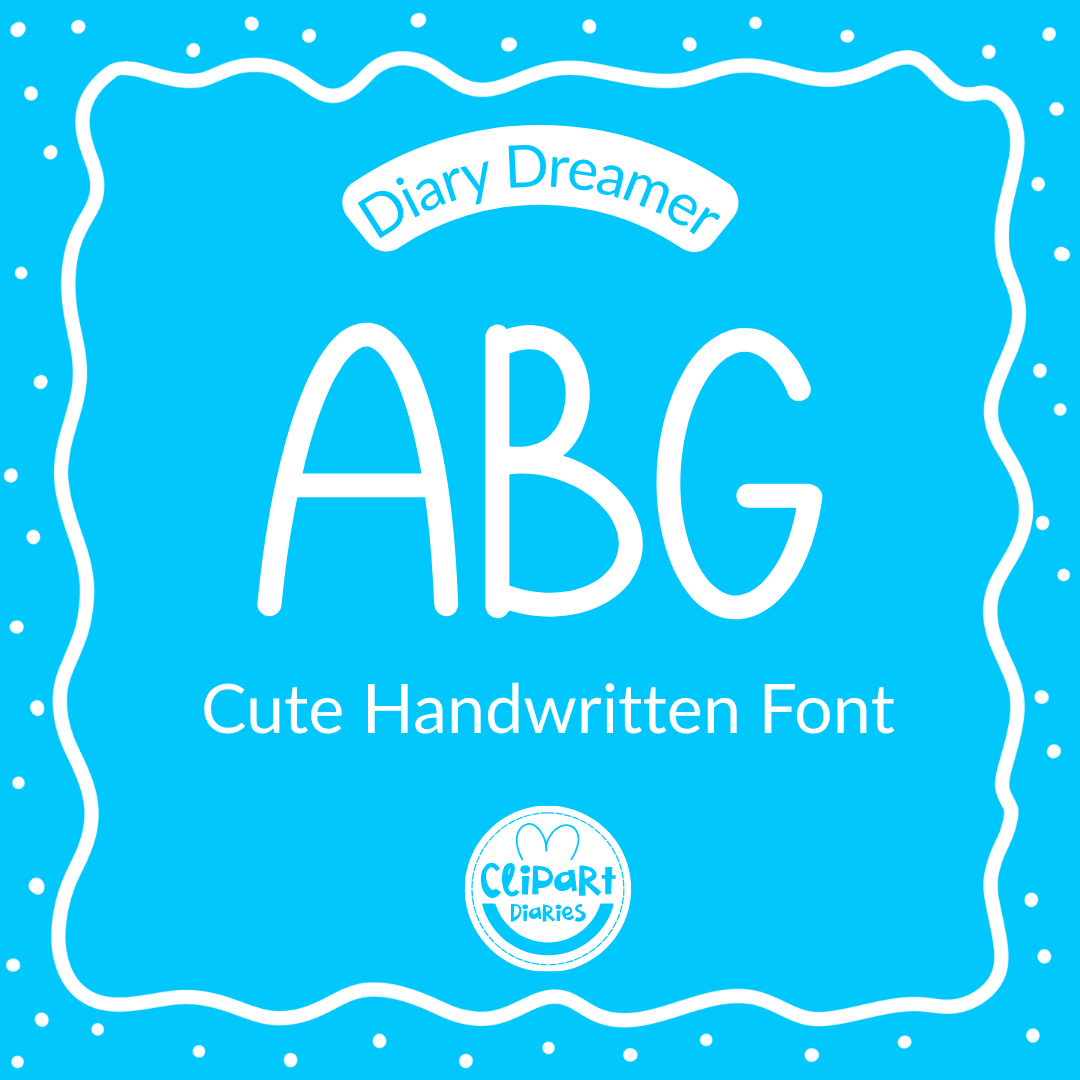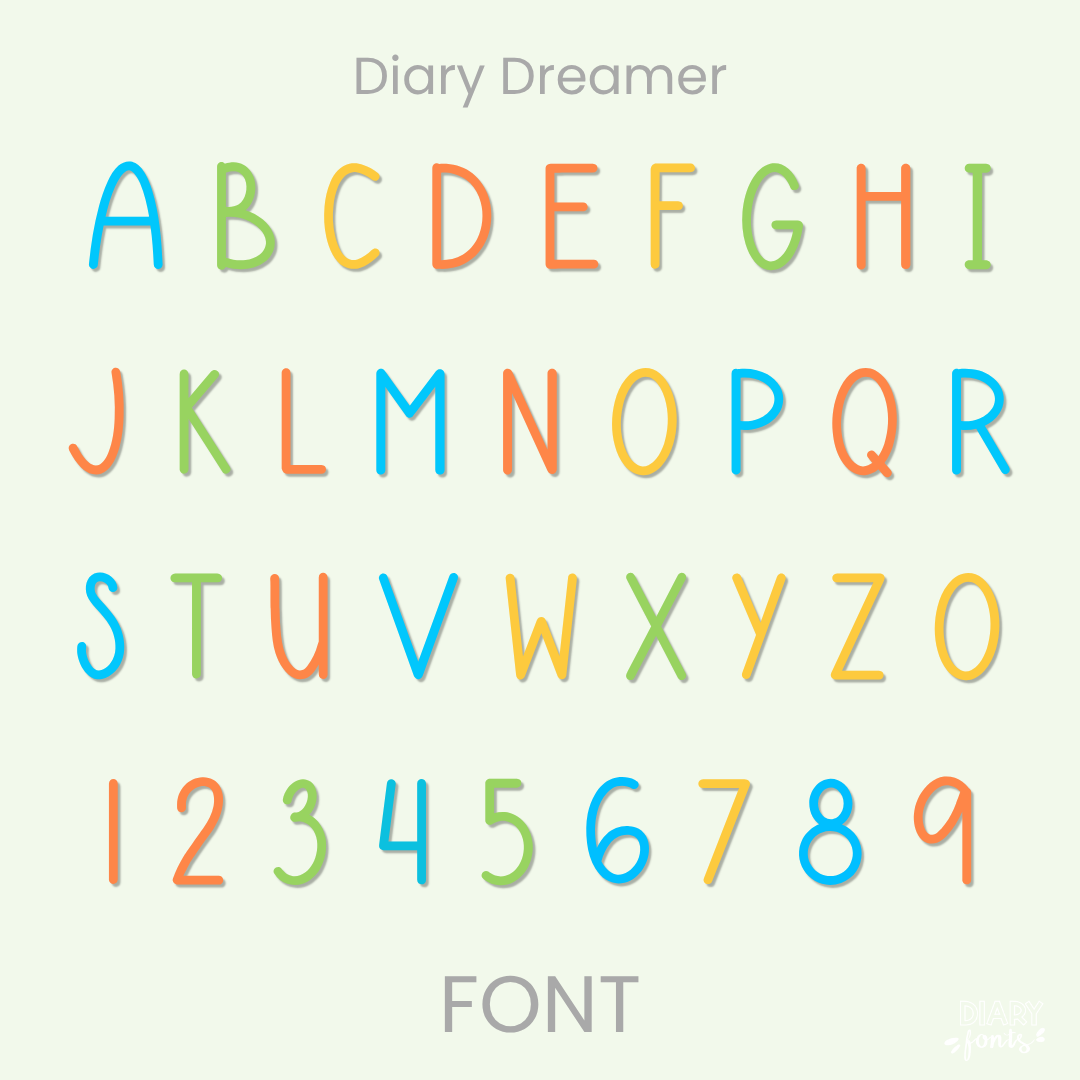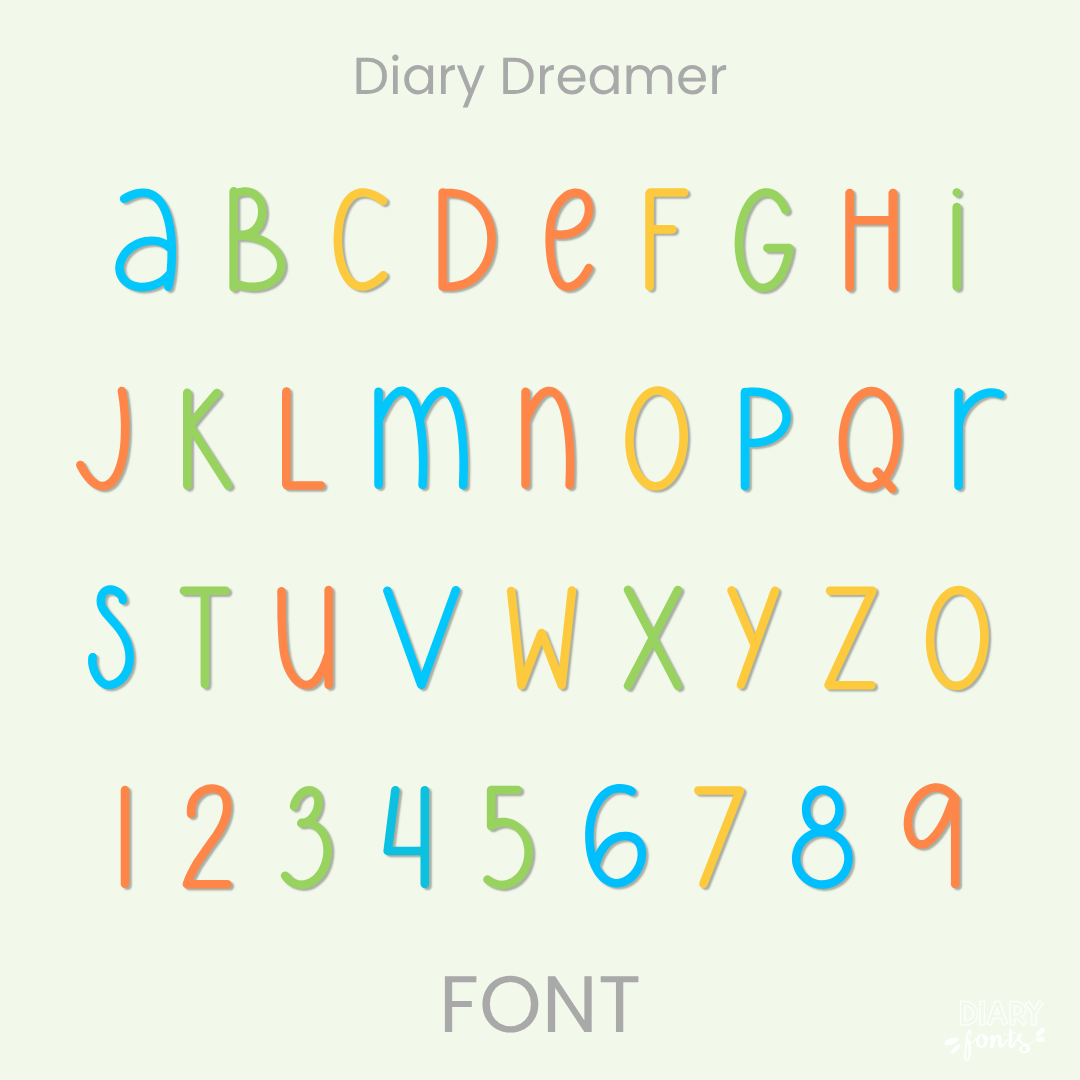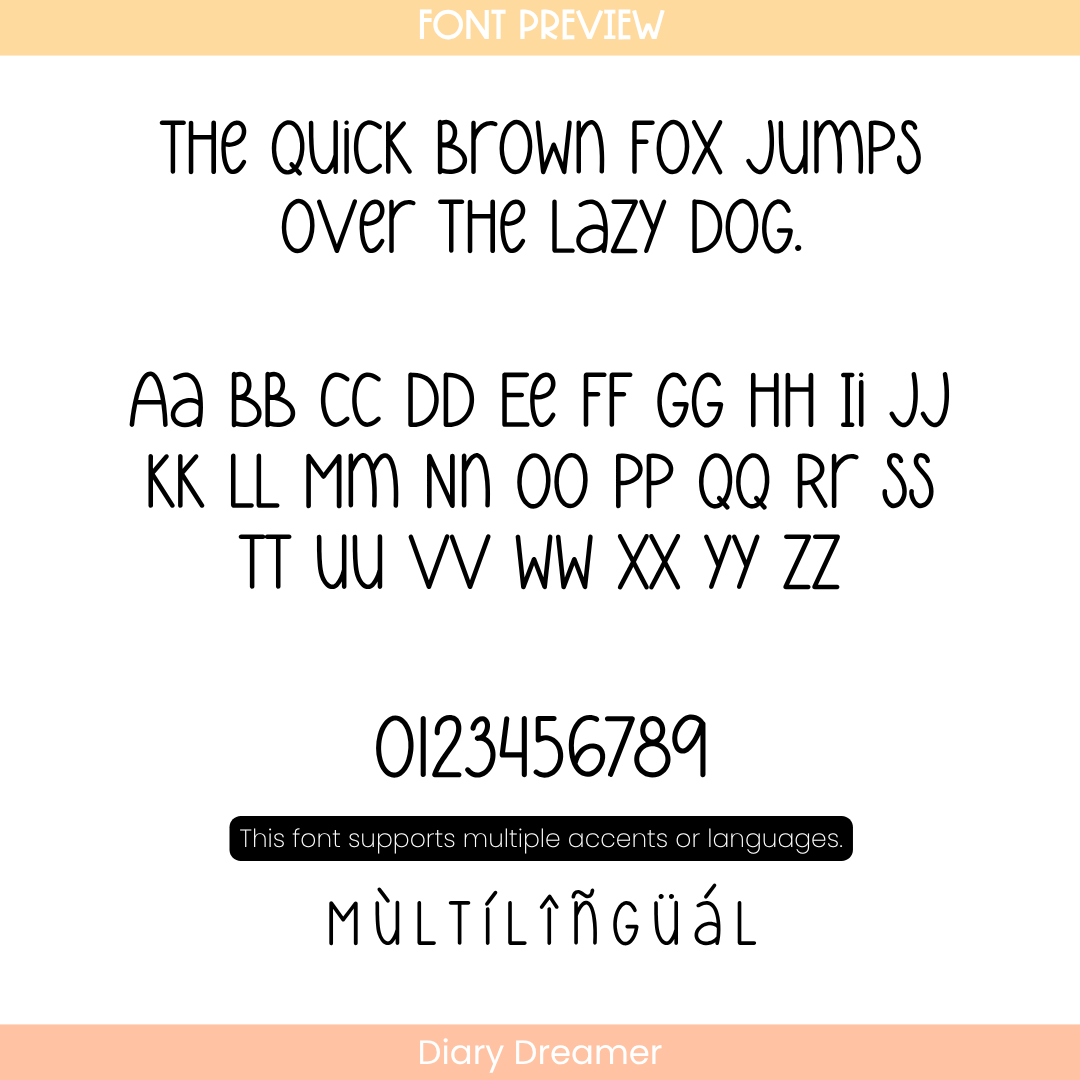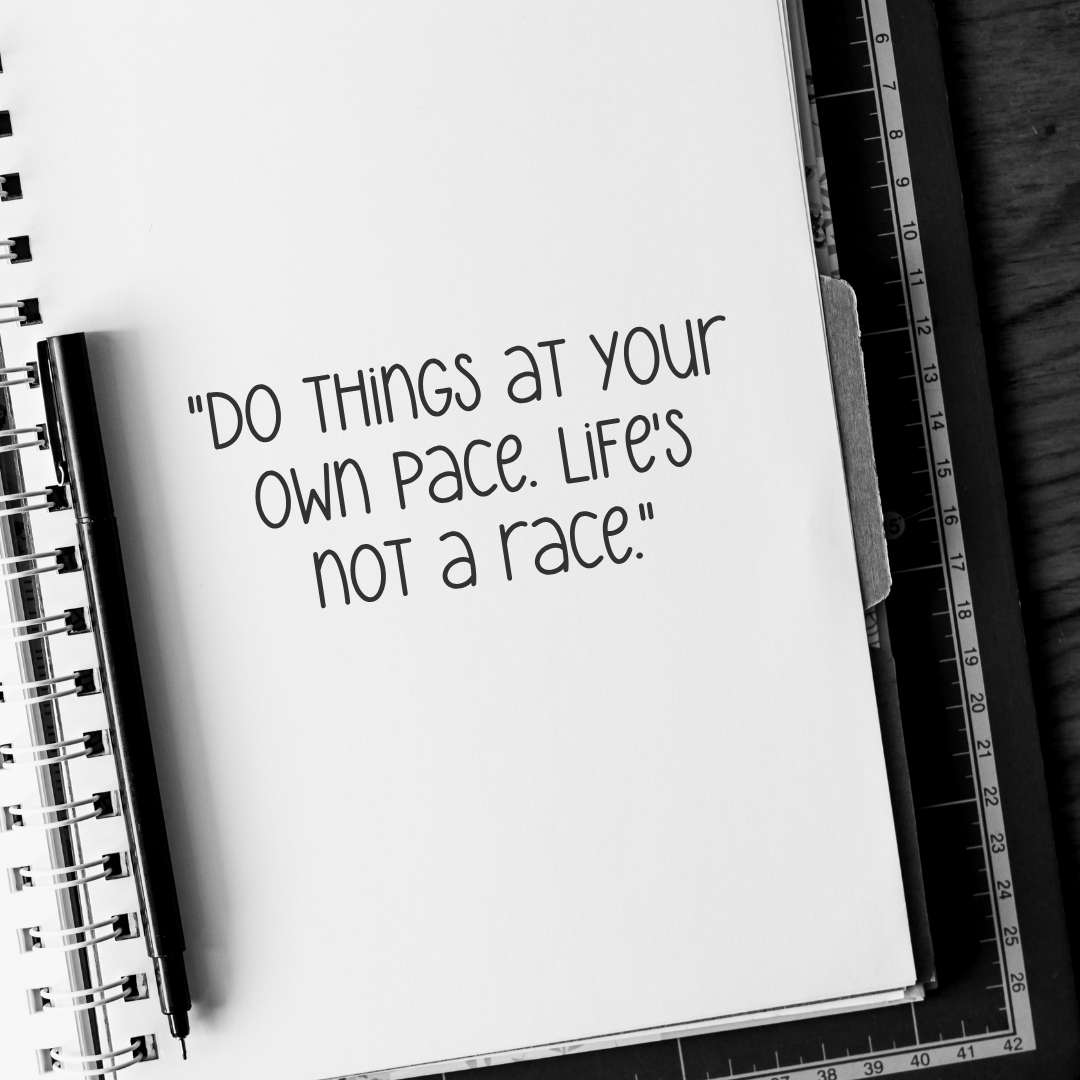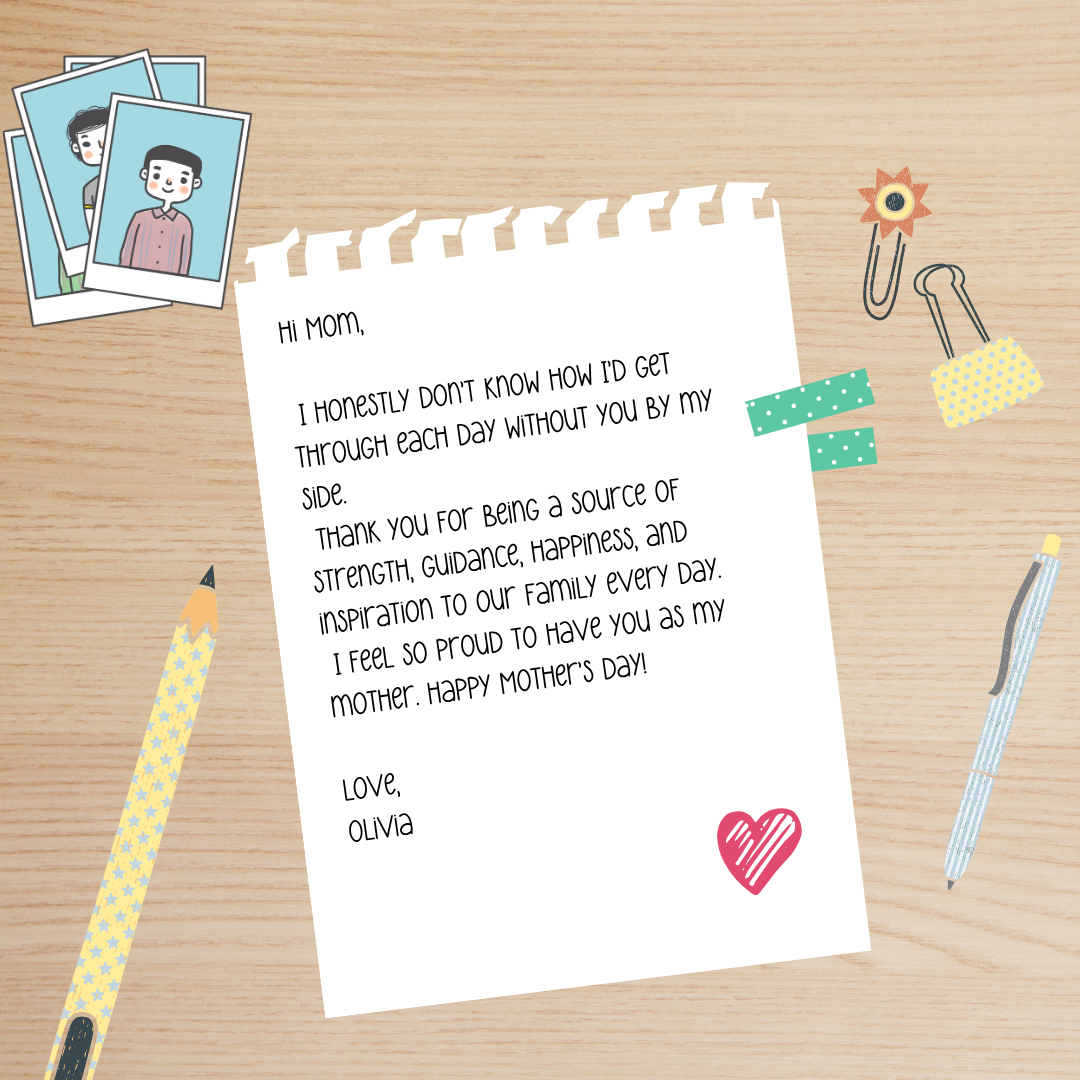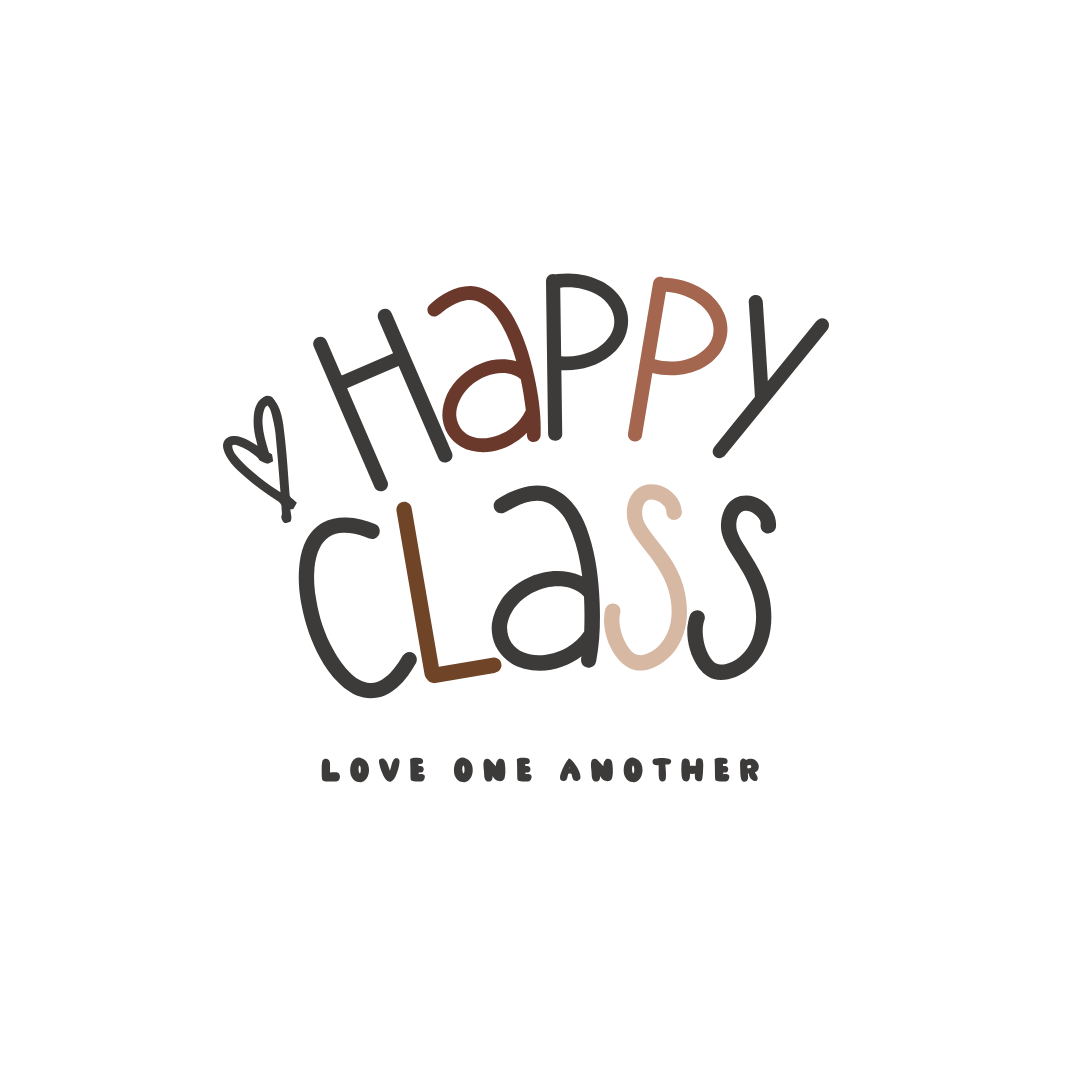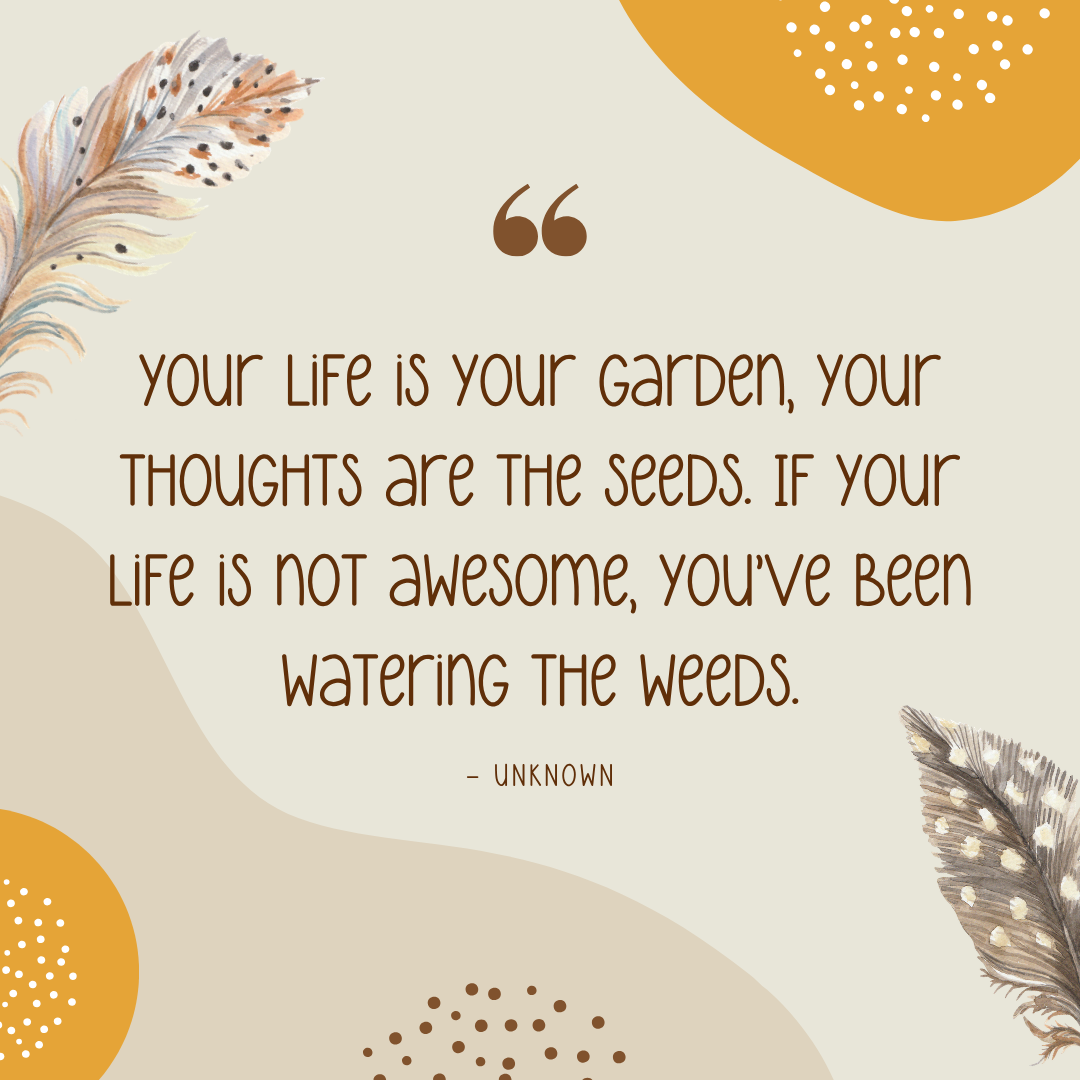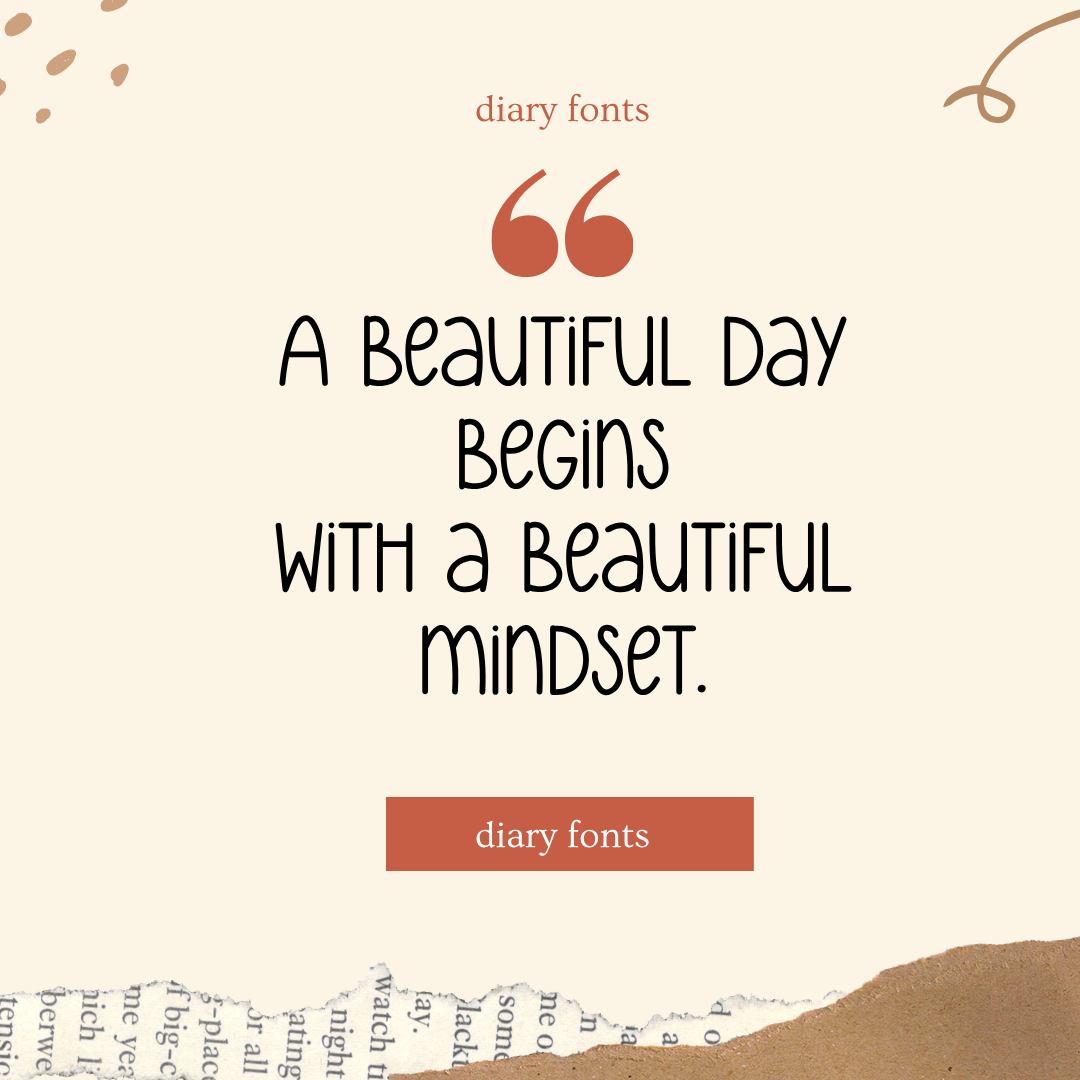
If you want to give your projects a cheerful and welcoming feel, Diary Dreamer is an excellent choice. It features bouncy, light-hearted characters with a natural, hand-drawn quality. The letterforms have a subtle, uneven charm with slight variations in the heights of the lowercase letters, giving it an authentic and whimsical hand-written look while remaining clear and readable for students. This makes it a wonderful option for daily morning slide decks, creative classroom worksheets, and student-facing task cards. The font includes a full set of uppercase and lowercase letters, numbers, and multiple accents to support different languages. It is ready for use in Canva, MS Office, and Adobe Apps, and it works perfectly with iPad apps like GoodNotes and Procreate. Whether for personal classroom designs or commercial teacher resources, this font adds a soft and approachable aesthetic to your work.
The Diary Dreamer is a playful and friendly handwritten font designed to bring a cozy, personalized look to your digital resources and classroom materials.